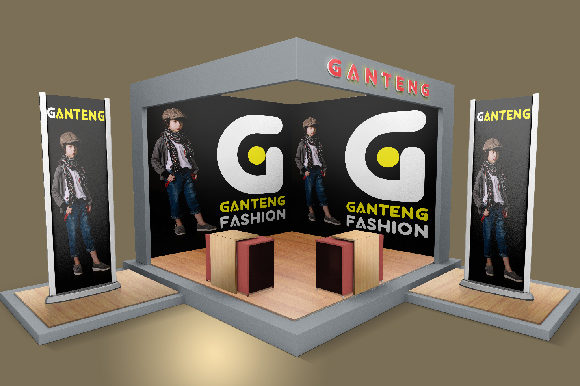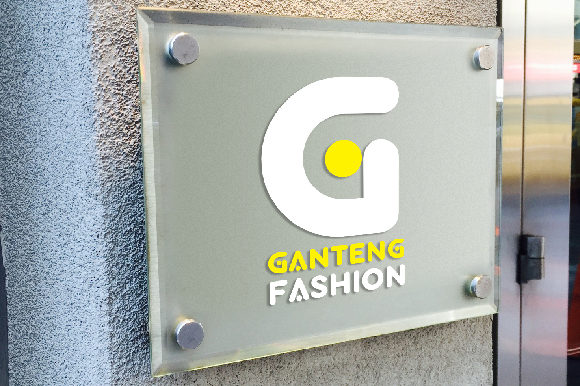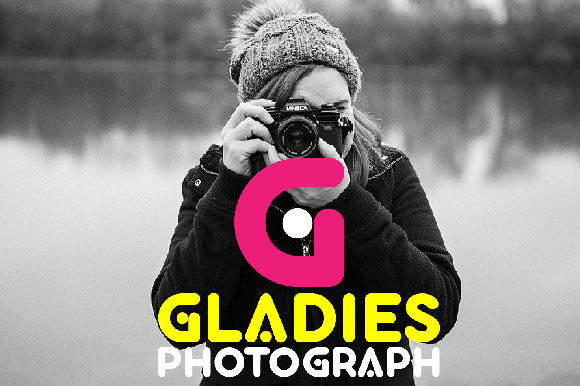
Aloha Font: The Ultimate Sans Serif Font for Designers and Crafters
Are you a designer or crafter looking for a font that can elevate your creative projects? Look no further than the Aloha Font! This highly legible sans serif font is perfect for a wide range of applications, from logos and slogans to newspapers, magazines, books, apparel, web design, and corporate use.
What Makes Aloha Font So Special?
The Aloha Font stands out from the crowd with its striking style and exceptional legibility. Its clean and modern sans serif design makes it easy to read, even at small font sizes. This font is perfect for designers and crafters who want to add a touch of professionalism and sophistication to their work.
Key Features of Aloha Font
• Highly Legible: The Aloha Font is designed to be easy to read, making it perfect for body text, headings, and titles.
• Sans Serif: The font’s clean and modern sans serif design makes it versatile and suitable for a wide range of applications.
• Striking Style: The Aloha Font has a unique and eye-catching style that is sure to grab attention.
• Multi-Purpose: This font can be used for logos, slogans, newspapers, magazines, books, apparel, web design, and corporate use.
Uses of Aloha Font
The Aloha Font is an incredibly versatile font that can be used in a variety of creative projects. Here are some ideas to get you started:
• Logo Design: Create a professional and memorable logo for your business or brand with the Aloha Font.
• Print Design: Use the Aloha Font for newspapers, magazines, books, and other print materials.
• Web Design: Add a touch of sophistication to your website with the Aloha Font.
• Apparel: Create stylish and eye-catching apparel with the Aloha Font.
• Crafting: Use the Aloha Font for crafting projects, such as card making, scrapbooking, and DIY signs.
Why Choose Aloha Font?
With so many fonts available, why choose the Aloha Font? Here are just a few reasons:
• Unique Style: The Aloha Font has a unique and striking style that will set your work apart from the crowd.
• Legibility: The font’s exceptional legibility makes it perfect for body text and headings.
• Versatility: The Aloha Font can be used for a wide range of applications, from print design to web design.
• Professionalism: The Aloha Font adds a touch of professionalism and sophistication to any project.
In conclusion, the Aloha Font is a highly legible sans serif font that is perfect for designers and crafters looking to elevate their creative projects. With its striking style, exceptional legibility, and versatility, this font is sure to become a go-to choice for a wide range of applications. Whether you’re designing a logo, creating print materials, or crafting a website, the Aloha Font is an excellent choice.